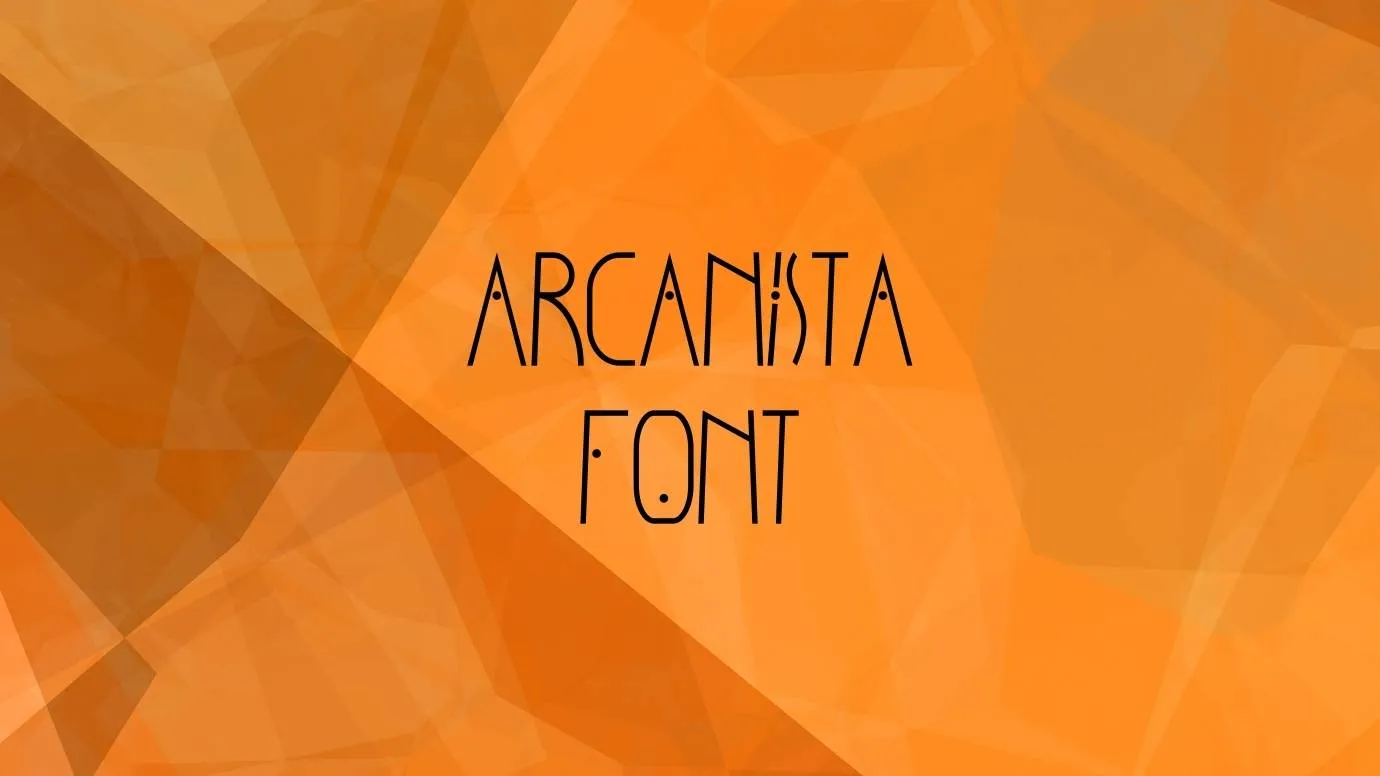
Arcanista Font Family is a decorative display font family with a remarkably stylish look. This incredible font was designed by Victor Tramontin and initially made available for public use.
In addition, This typeface is similar to Land font that has been influenced by totems and runes and it is very suitable for posters, greeting cards, t-shirt designs, as well as headlines, and product titling.
Arcanista Font